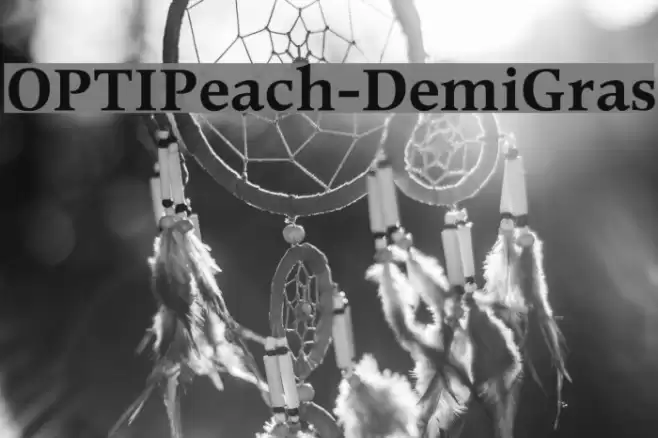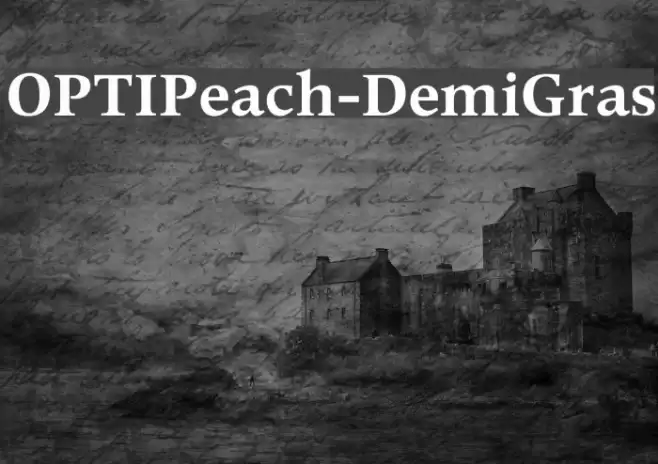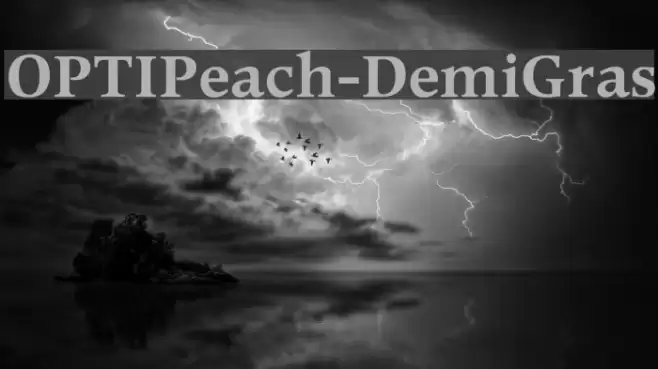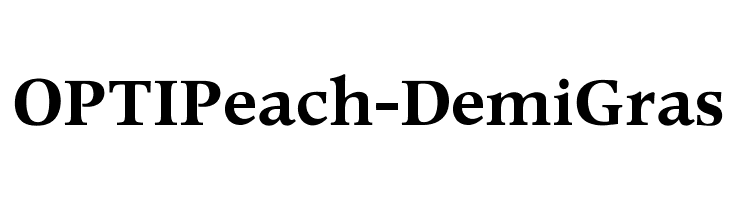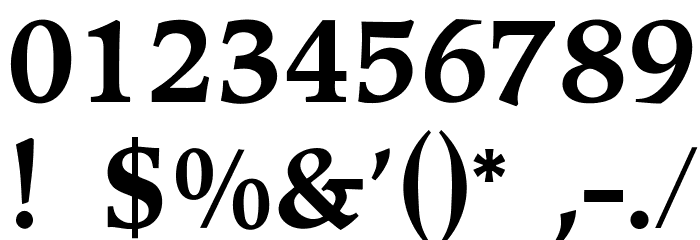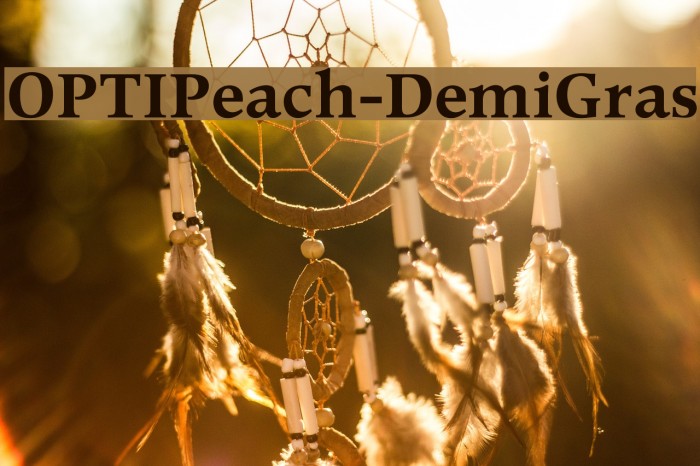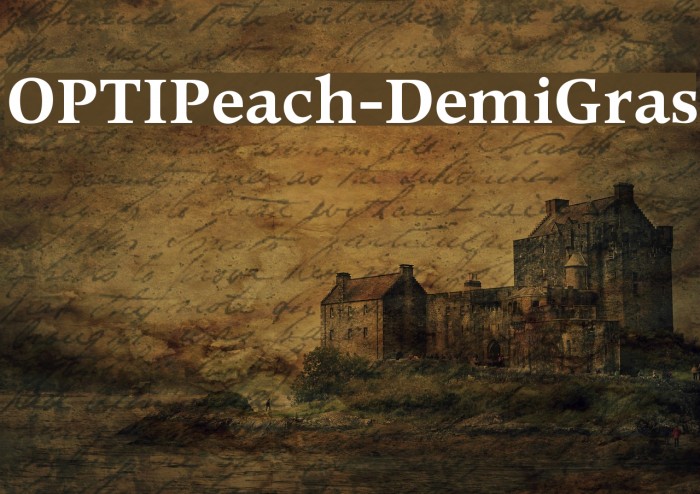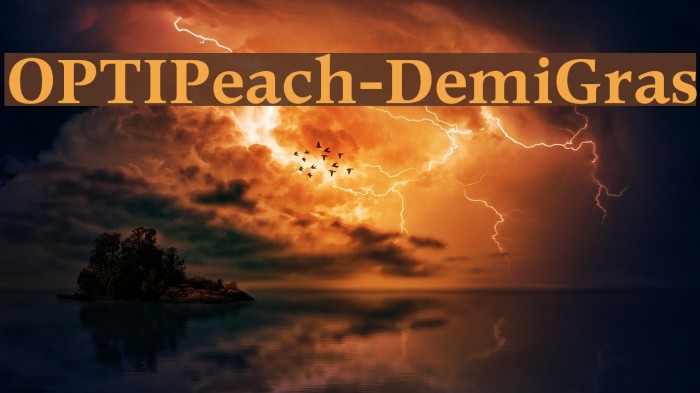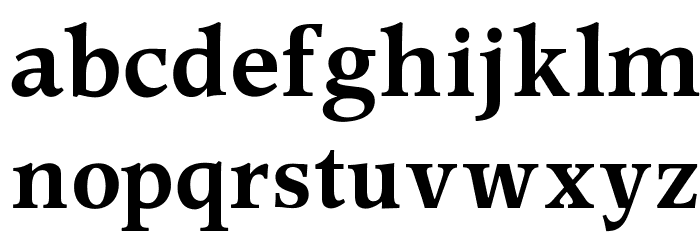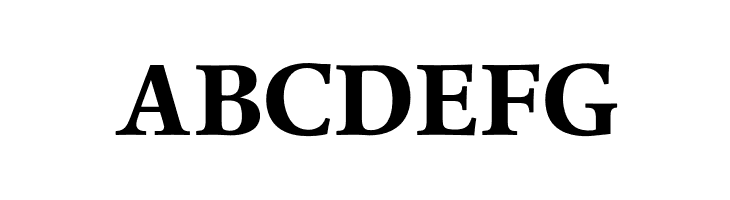
OPTIPeach-DemiGras Font
OPTIPeach-DemiGras Description
This font features a bold and authoritative serif style, characterized by strong, thick strokes and sharp serifs. The uppercase letters are robust and commanding, while the lowercase letters maintain a consistent weight, providing a harmonious balance. The numerals are clear and legible, making them suitable for various applications. The special characters are well-integrated, maintaining the overall aesthetic of the font. The design is classic yet modern, making it versatile for both traditional and contemporary projects.
A bold, serif font with strong strokes and sharp serifs, offering a classic yet modern appeal from Uncategorized fonts.
- Proposed Projects: Ideal for headlines, branding, editorial design, and any project requiring a strong, authoritative typeface.
- Overall Style: Classic
- Use Case: Headlines, Logos, Editorial design